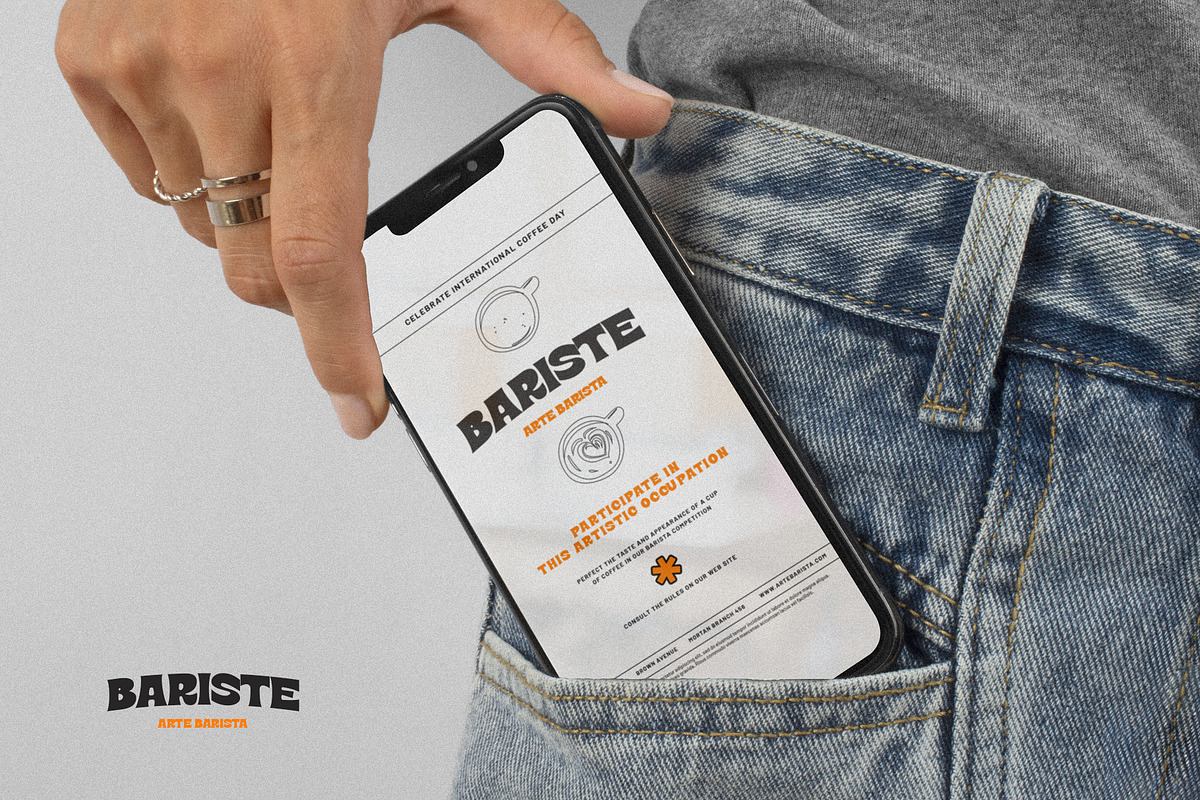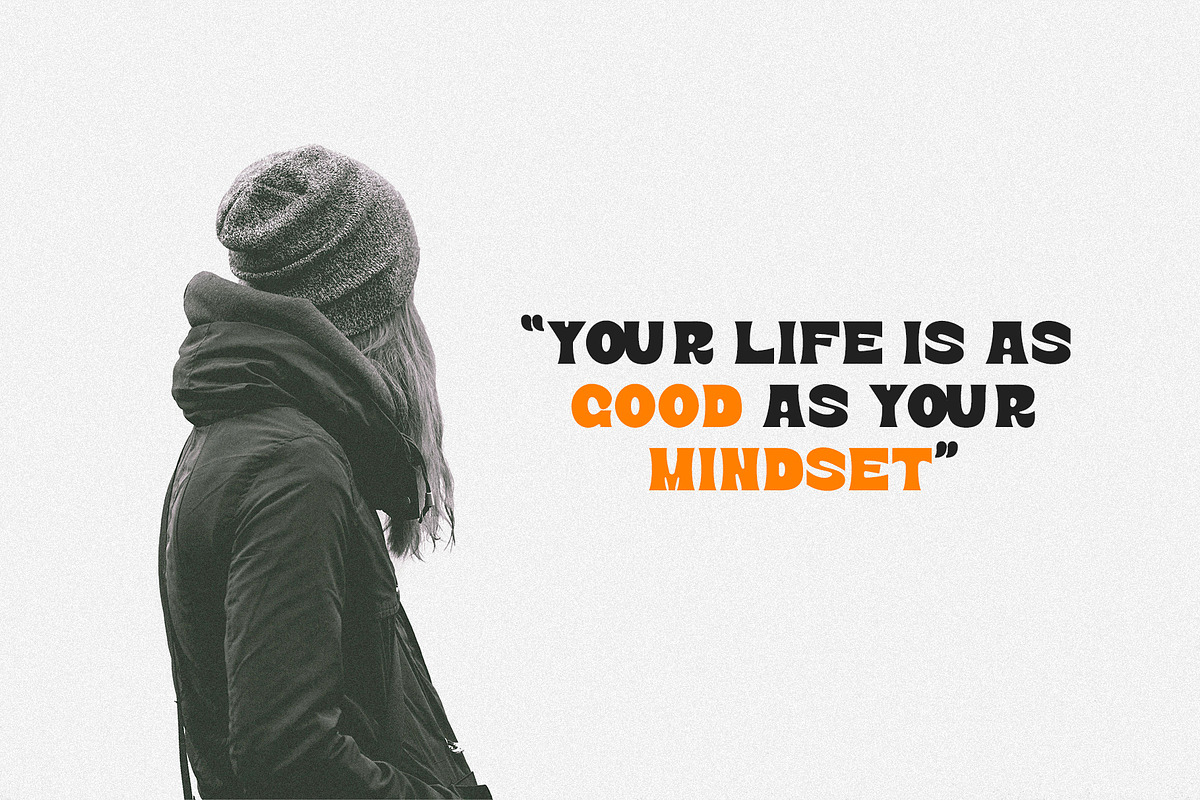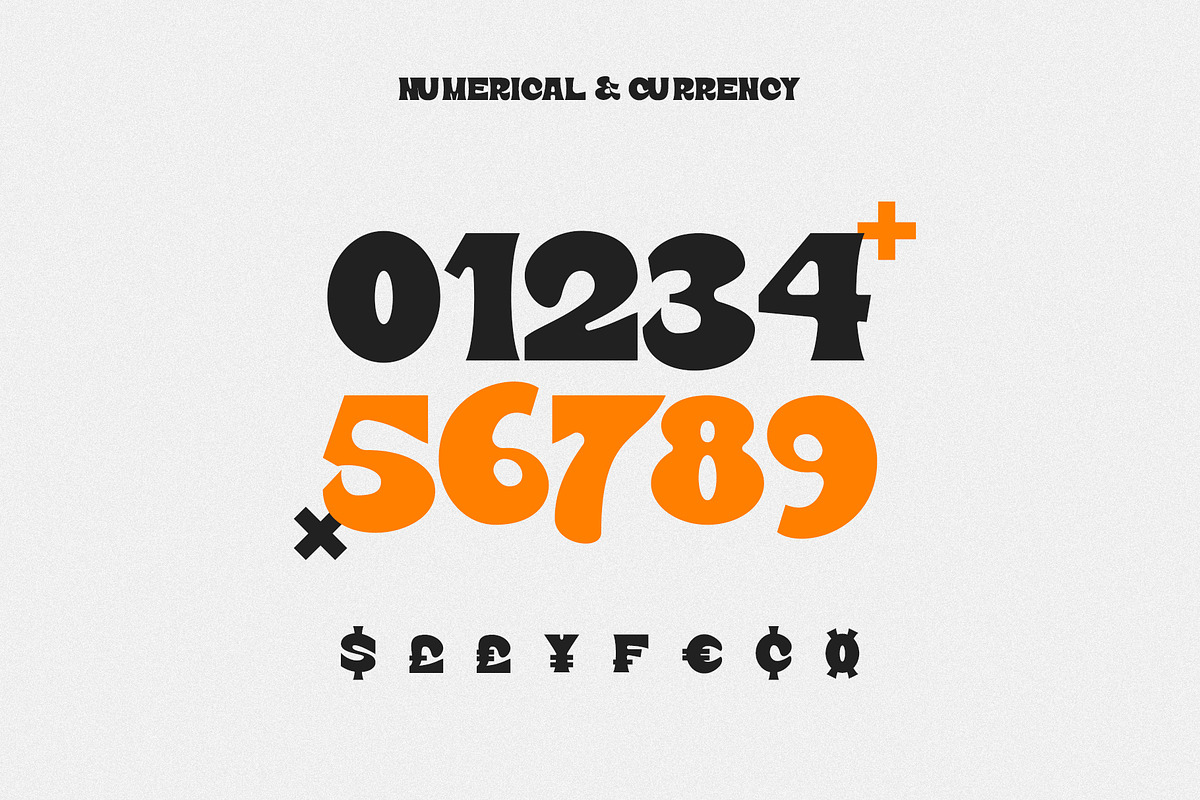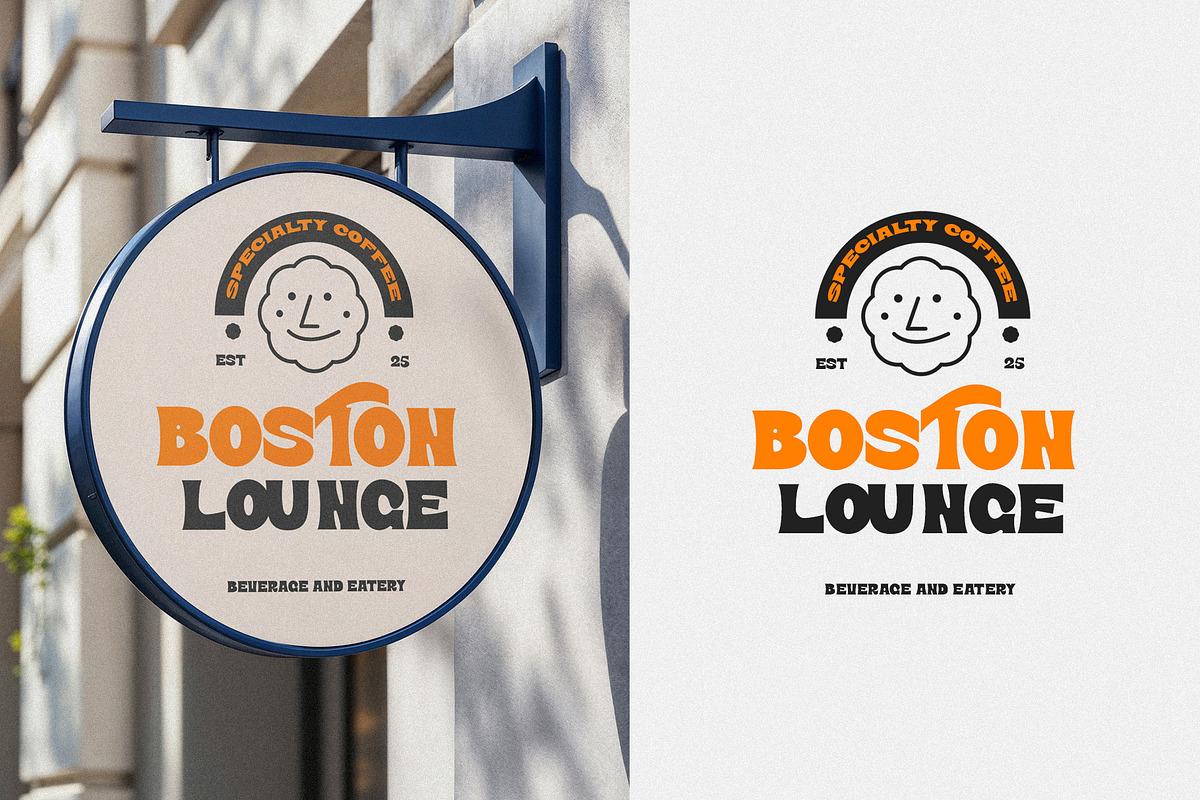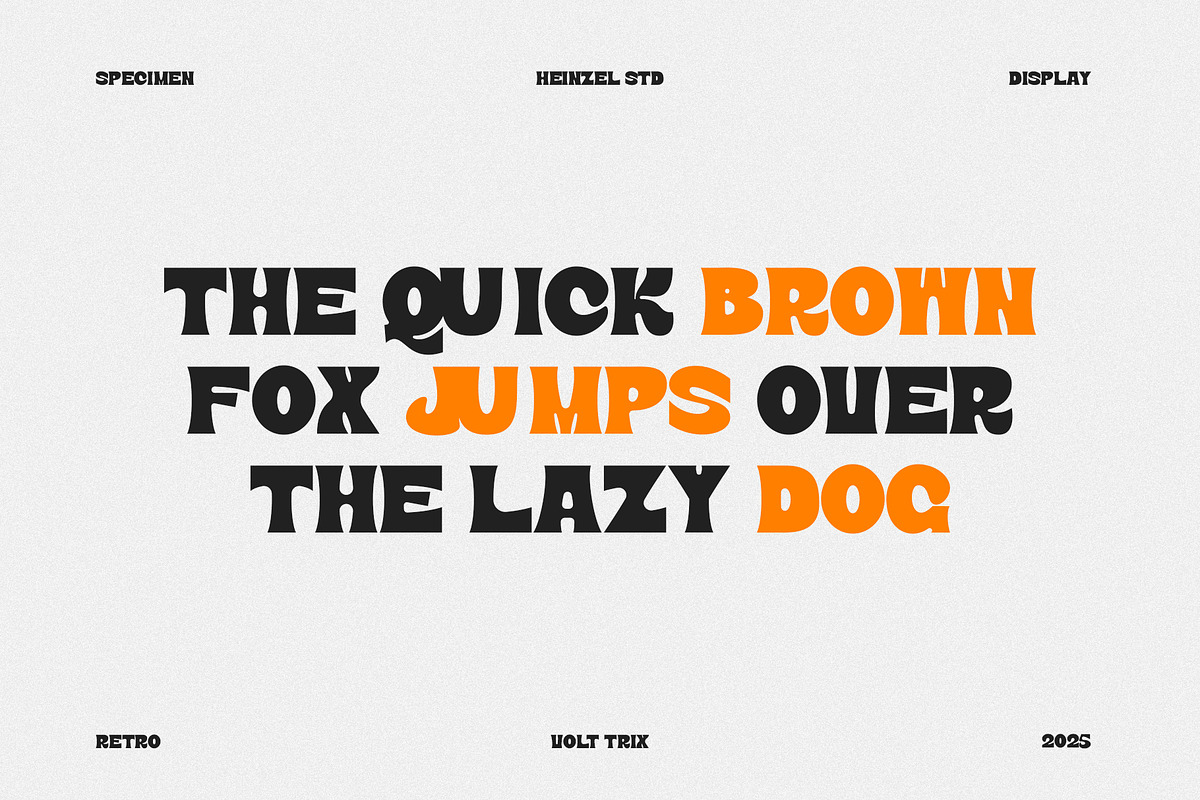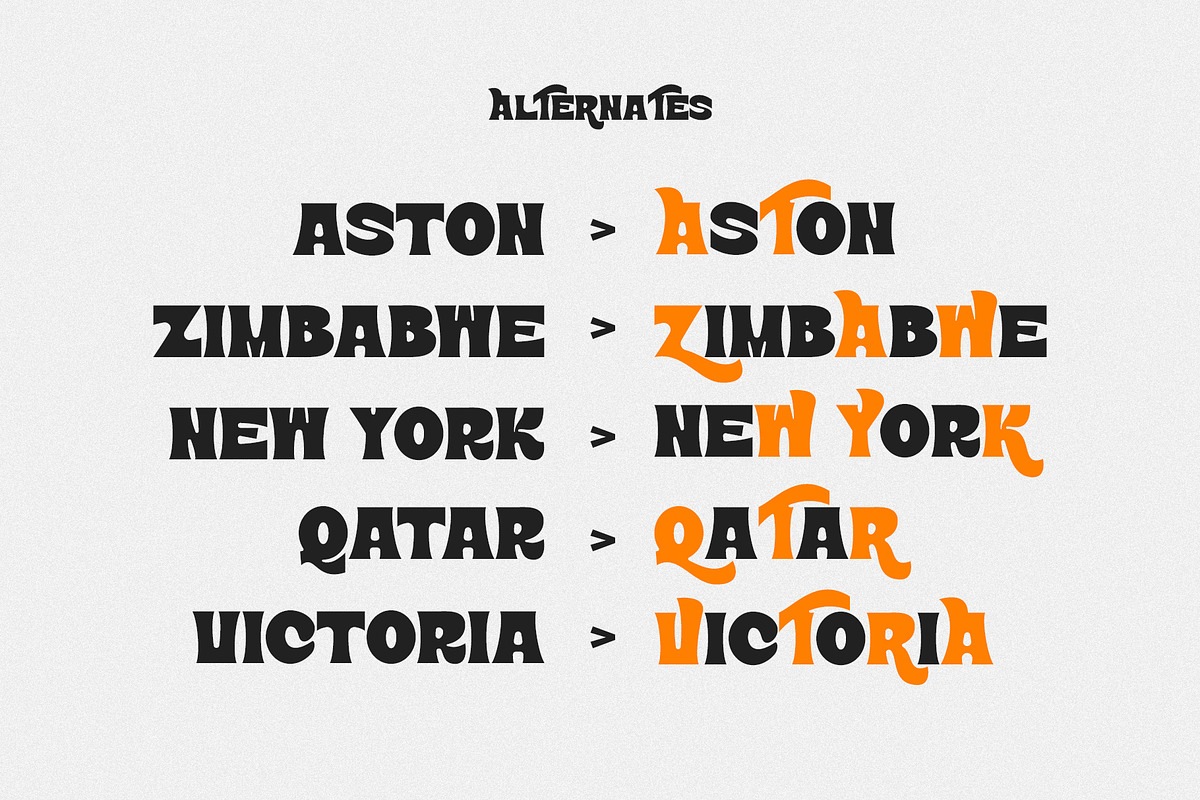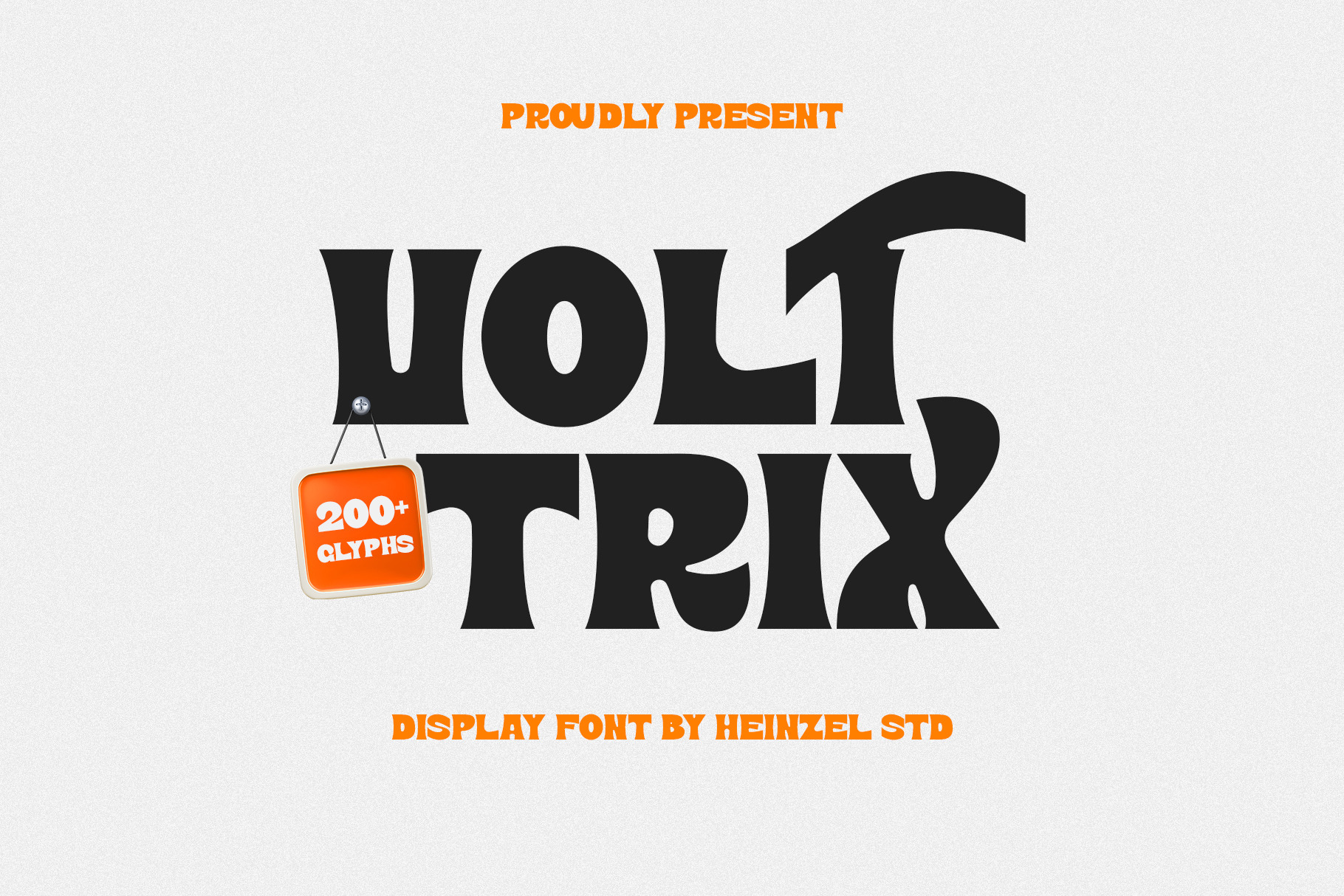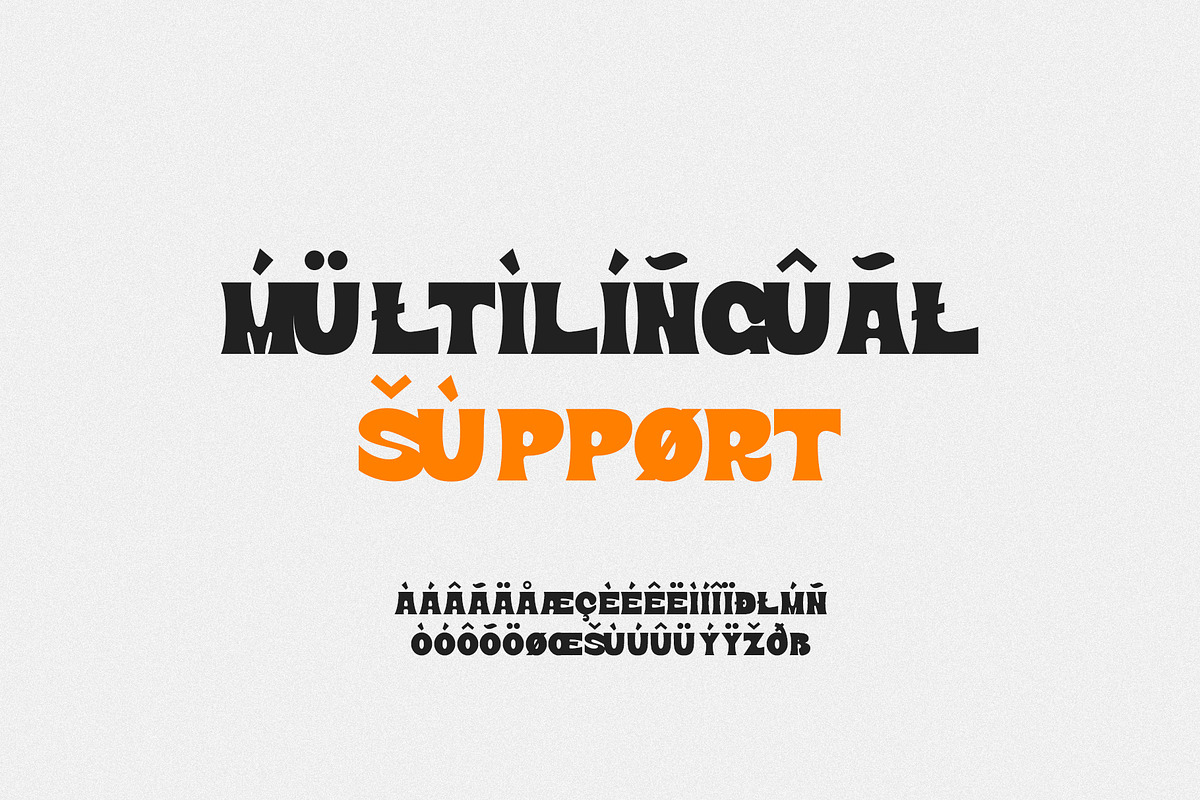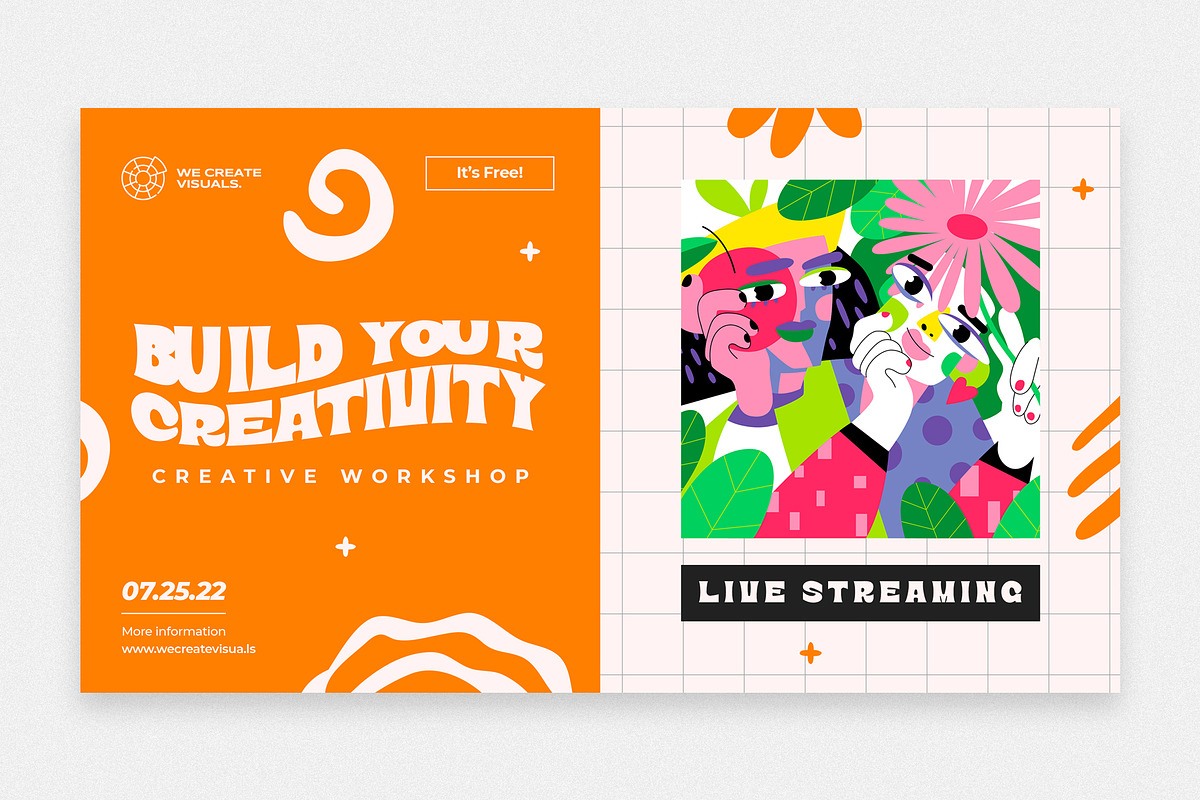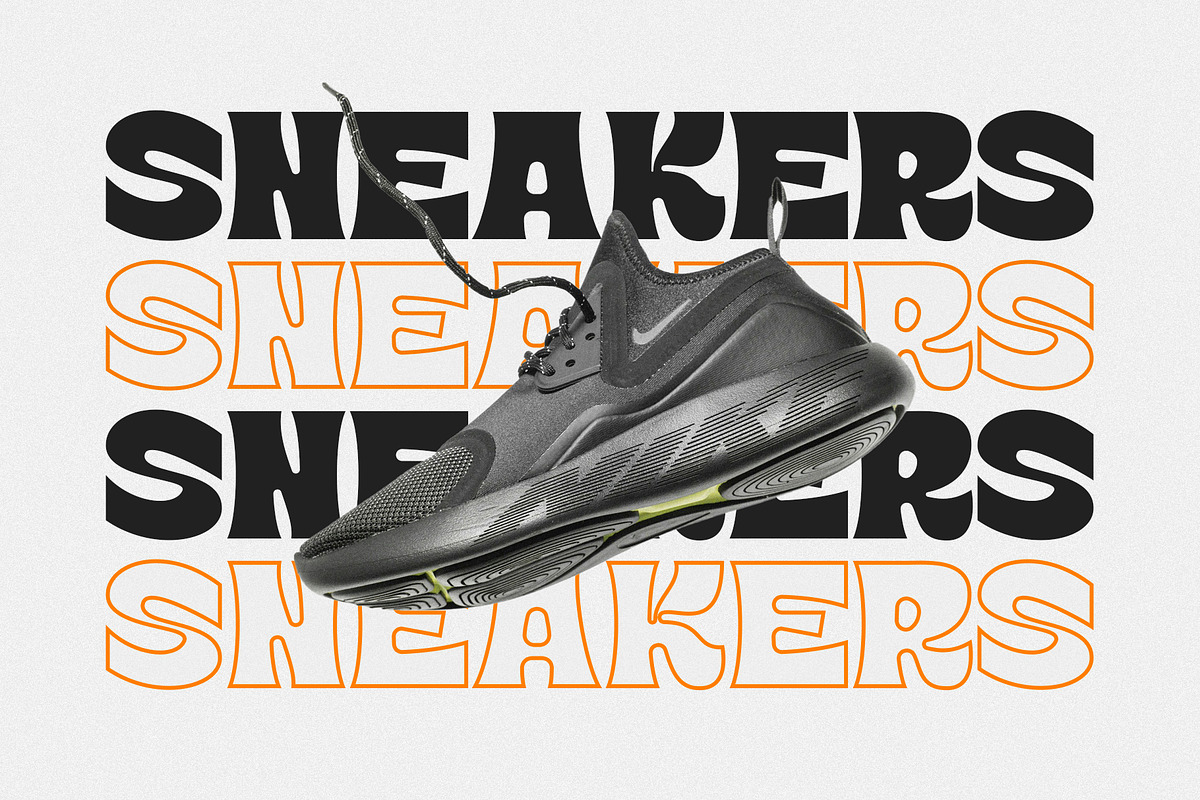
Volt Trix Bold Display Font
Volt Trix is a bold and playful display font designed for eye-catching titles, logos, posters, and branding projects. Featuring 200+ unique glyphs, Volt Trix brings a retro yet modern vibe that stands out in any design. Perfect for creatives seeking a powerful and character-rich display typeface.
Whether you're crafting vintage-inspired graphics or modern bold layouts, Volt Trix ensures your typography captures attention instantly. Its fun character and distinctive silhouette make it a great choice for designers who want a memorable and expressive display font.